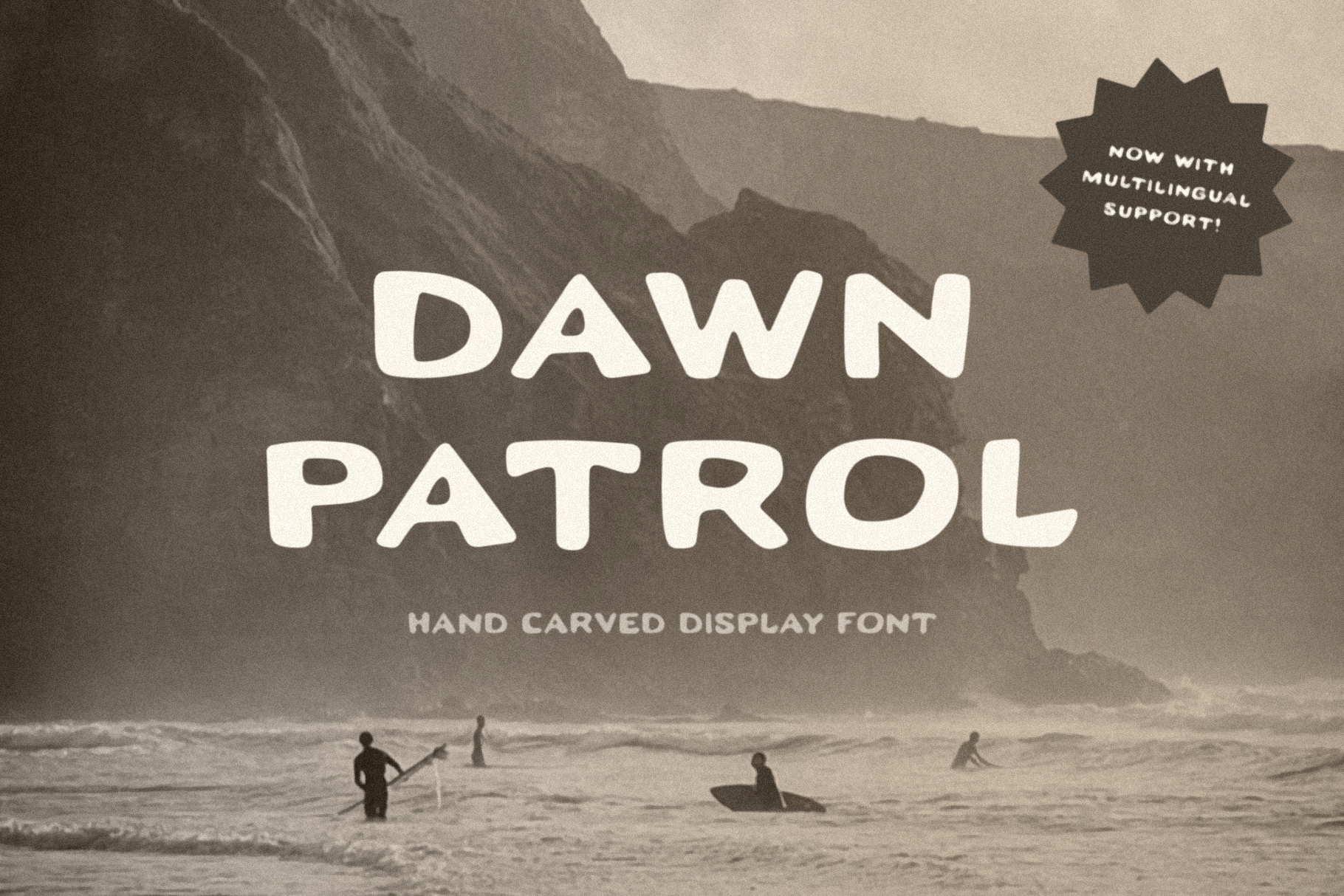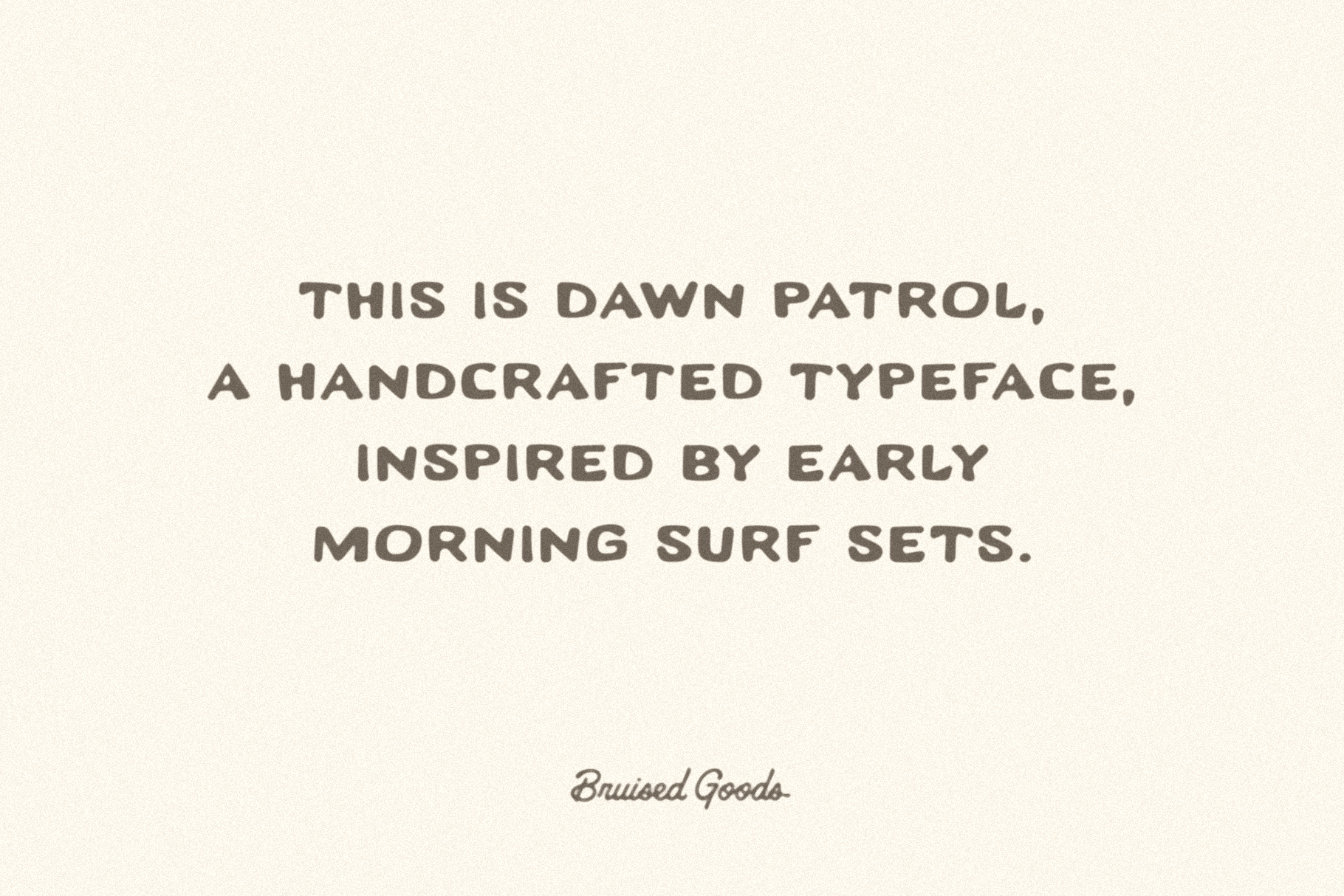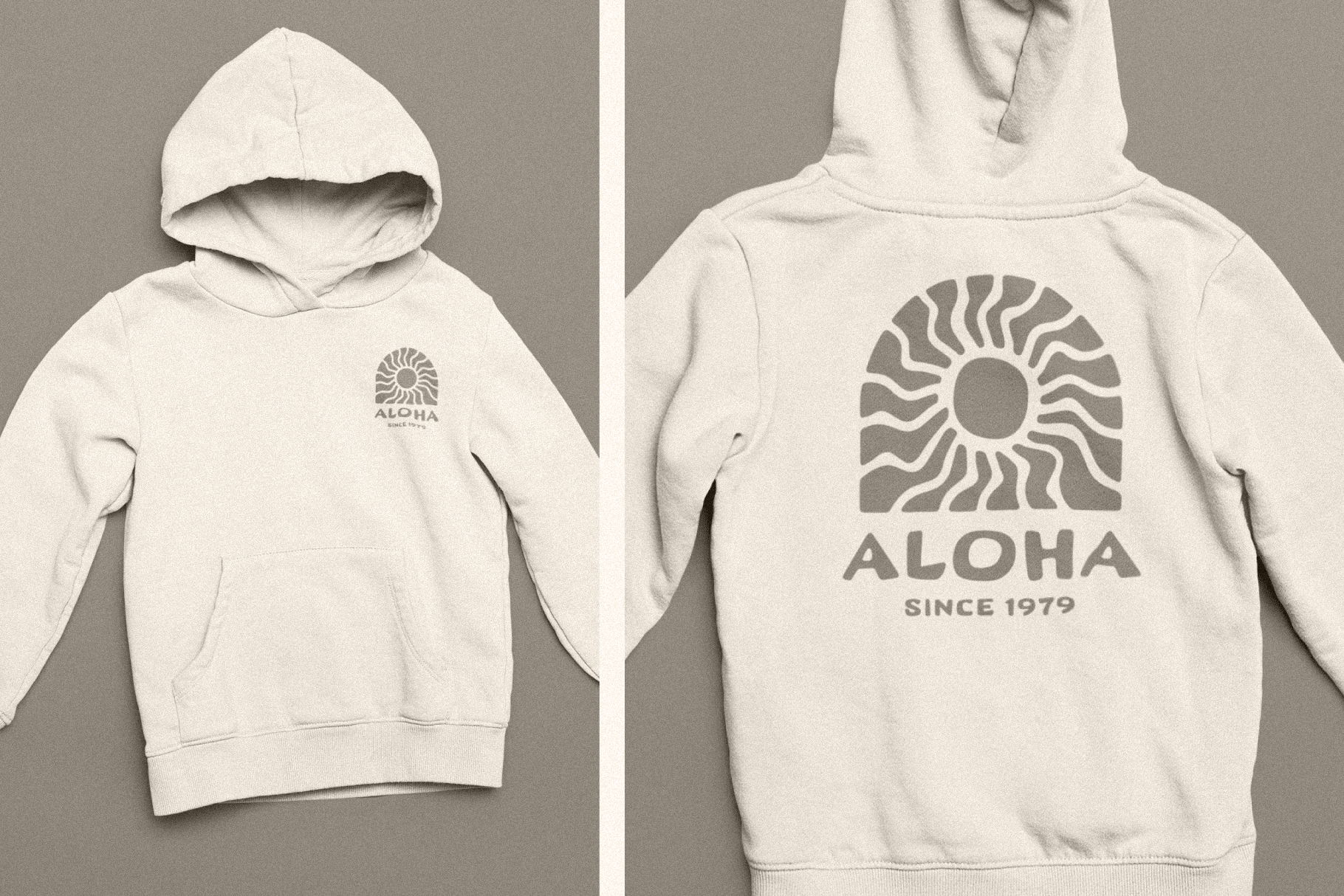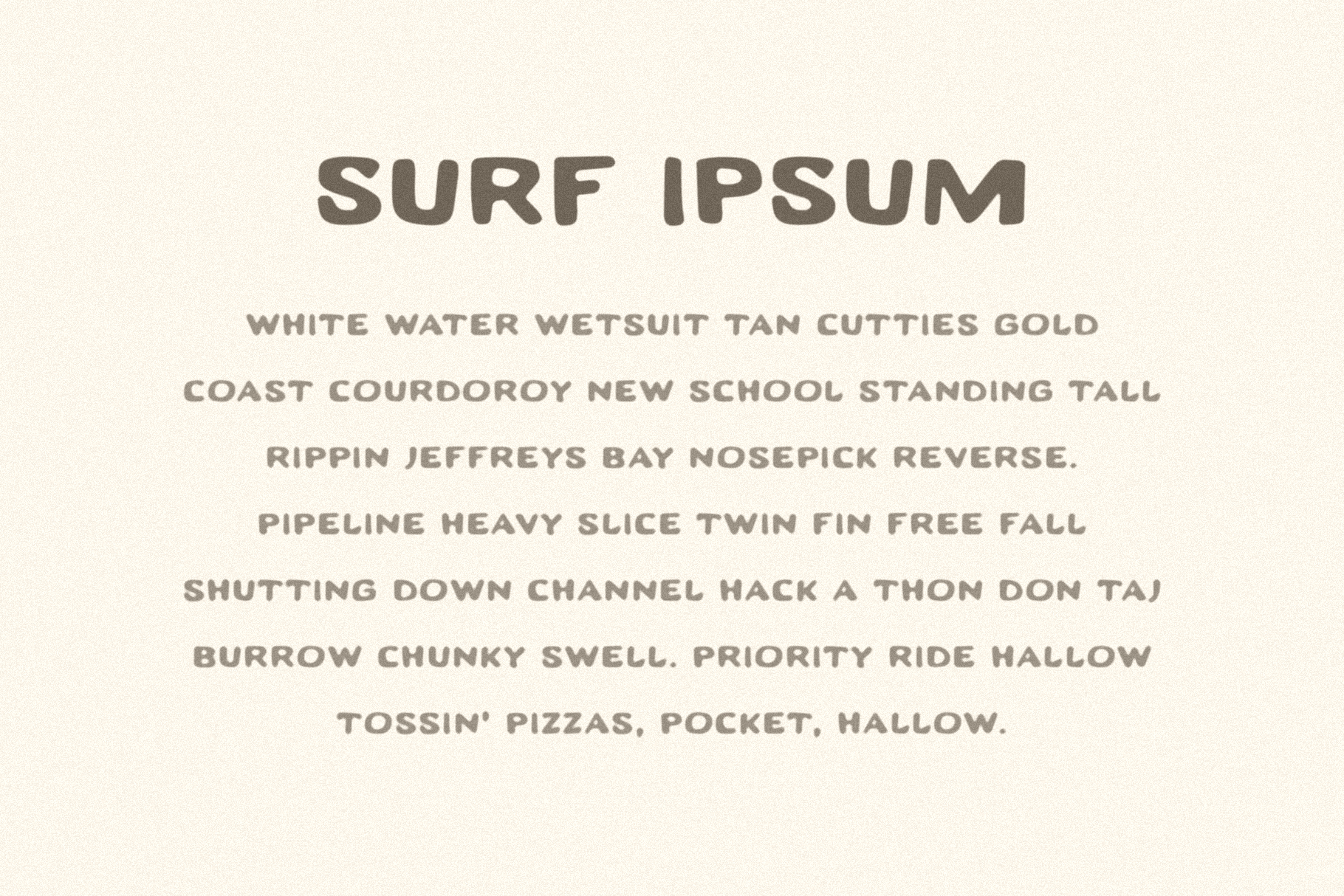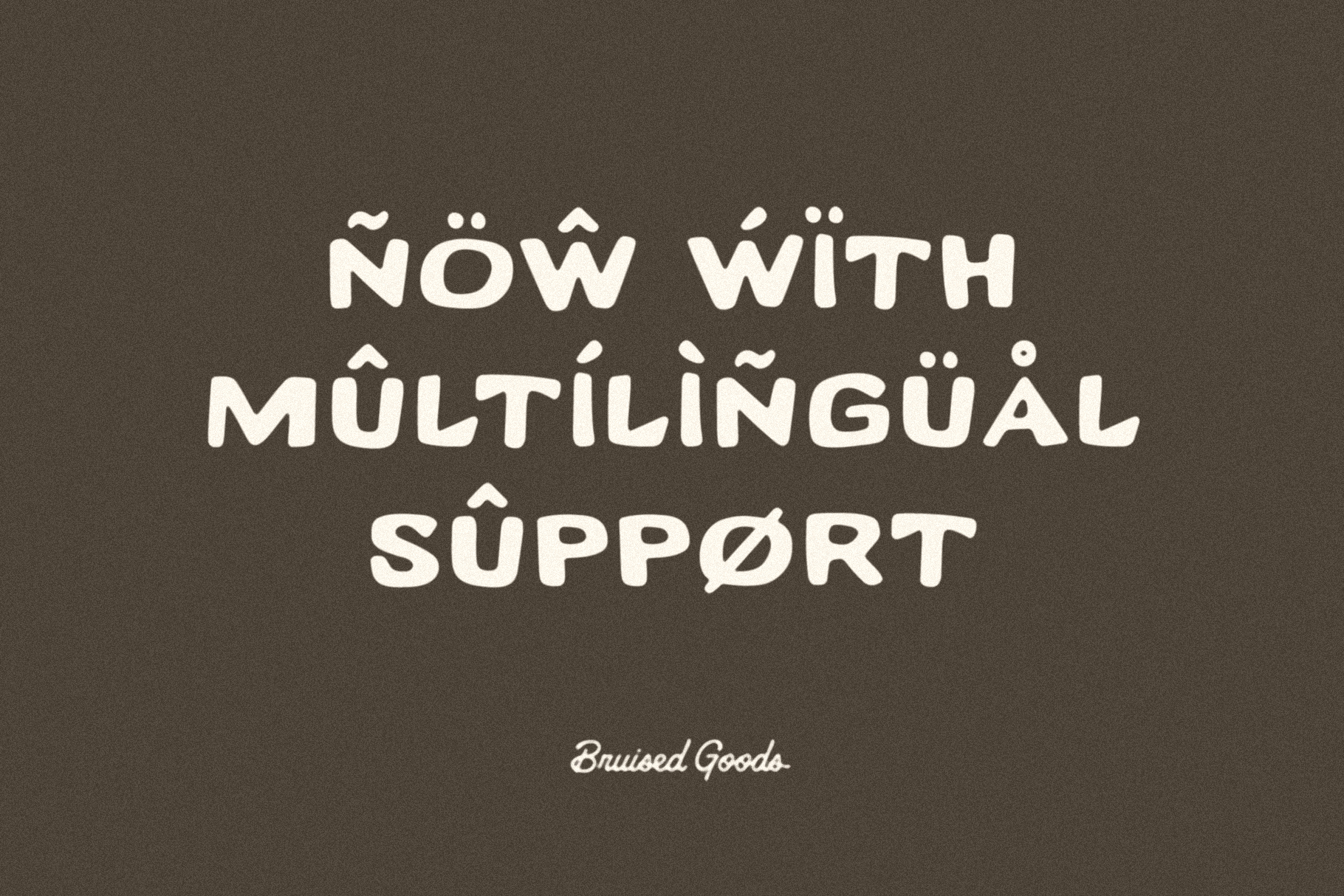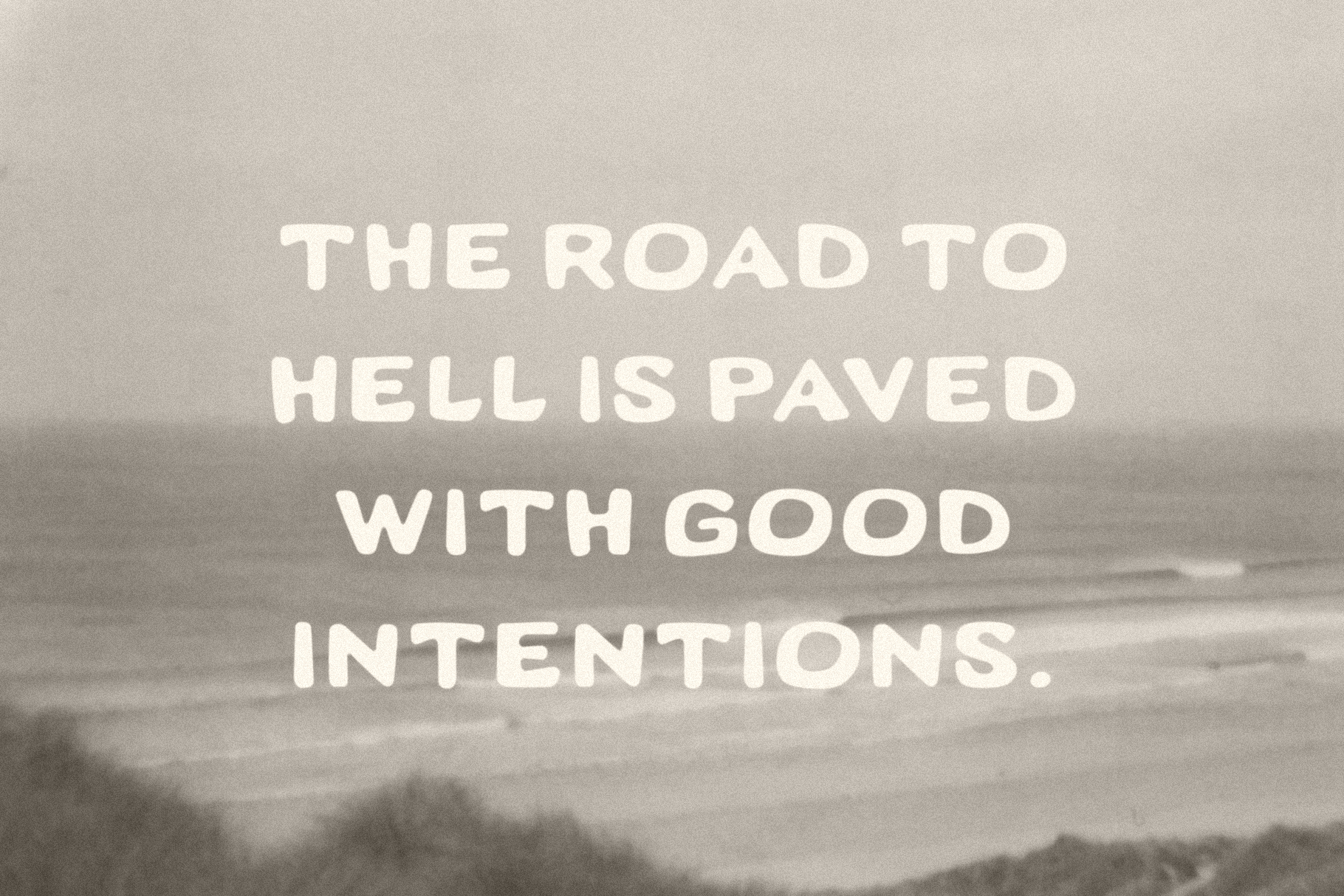
Dawn Patrol 2.0
DAWN PATROL – A hand cut display font inspired by early morning surf checks.
Uppercase letters ONLY
Numbers, Currency Symbols, Standard Punctuation
NOW WITH Language Support: Danish, English, French, German, Irish, Italian, Portuguese, Spanish, Swedish, & Swiss German.